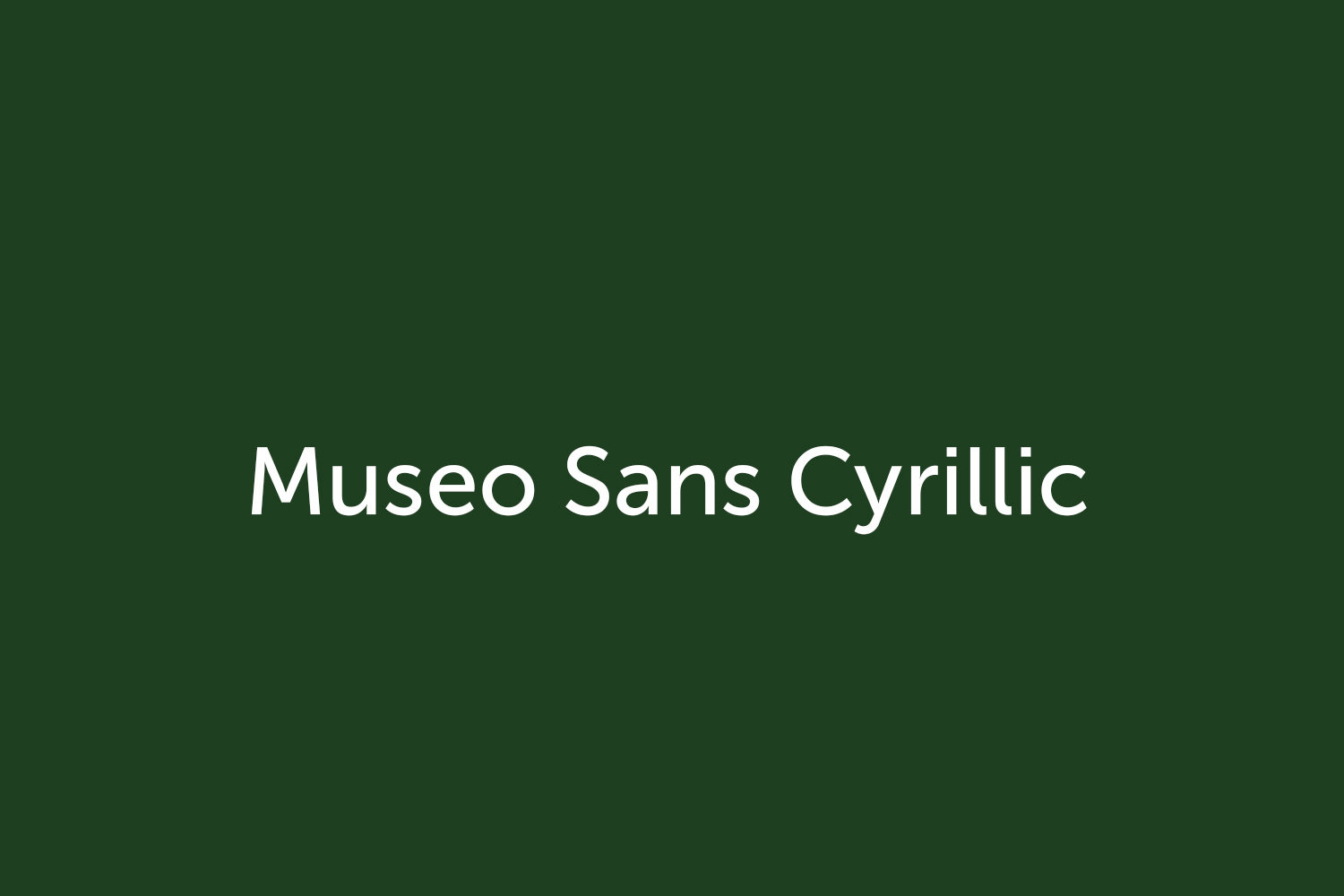
Museo Sans Cyrillic Free Font is an extension of Museo Sans and based on the well-known Museo.
It is a sturdy, low contrast, geometric, highly legible sans serif typeface very well suited for any display and text use.
Designed by Exljbris